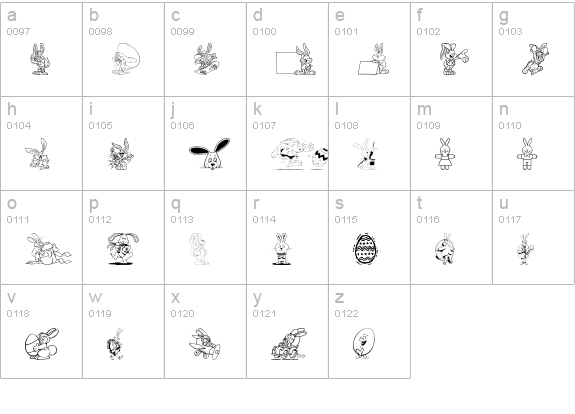
Introducing Easter Hoppy font, a delightful and playful typeface that brings the spirit of Easter to life. This charming font is perfect for adding a touch of whimsy to your Easter-themed projects, whether it's designing greeting cards, creating invitations, or adding a festive touch to your digital designs. Easter Hoppy font features a unique and eye-catching design, with letters that resemble cute and cuddly Easter bunnies hopping around. Each letter is meticulously crafted to capture the essence of Easter joy and excitement, making it a fun and engaging choice for any project. What makes Easter Hoppy font even more special is that it is available for free! Yes, you heard that right. This delightful font can be downloaded for free at FontsMarket.com, allowing you to bring a touch of Easter magic to your designs without breaking the bank. Whether you're a professional designer or a DIY enthusiast, Easter Hoppy font is the perfect addition to your font collection. Its versatility and charm make it suitable for a wide range of projects, from children's books and illustrations to Easter-themed websites and social media graphics. So why wait? Download Easter Hoppy font today and let the Easter bunny sprinkle some magic on your designs. With its playful and whimsical style, this font is sure to bring a smile to everyone's face and add a touch of joy to your Easter celebrations. Get it now for free at FontsMarket.com and start creating Easter-inspired designs that will delight and enchant.